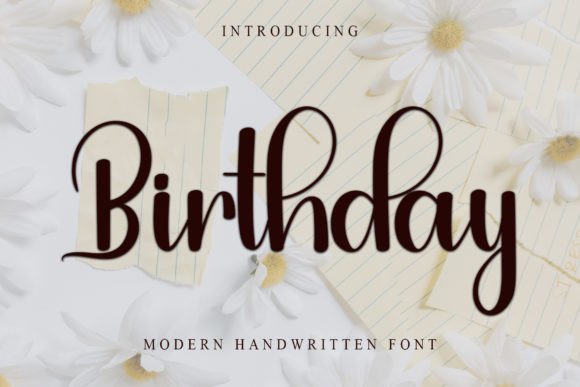
Unleashing Creativity with Birthday Font
Do you remember that moment when you were brainstorming ideas for a friend’s birthday party, and suddenly, a burst of inspiration hit you? You envisioned a beautiful, hand-written invitation that perfectly captured the essence of the celebration. This is where the Birthday Font comes in – a beautiful, elegant handwritten font that adds a touch of sophistication to any project.
This lovely font is designed to be versatile and timeless, making it perfect for a wide range of designs, from party invitations to social media graphics. Its unique style will undoubtedly make your creations stand out, and its ease of use makes it a valuable addition to any designer’s toolkit.
Whether you’re a professional designer or a hobbyist, the Birthday Font is an excellent choice for adding a personal touch to your work. Its beauty and elegance will undoubtedly make your projects shine, and its distinct style will leave a lasting impression on your audience.
Birthday Font Key Features
- Font Style: A custom, cursive font designed specifically for celebrating birthdays, with a playful and whimsical feel.
- Unique Characteristics: Features a unique, hand-drawn design with subtle flourishes and ornaments, adding a personal touch to birthday celebrations.
Birthday Font Review
Overall, I’d say the Birthday Font is a sweet addition to any designer’s toolkit. It’s perfect for creating celebratory graphics, cards, and other party-themed designs. ✨
- Fun and playful vibe: The font’s swirly, cursive style gives off a sense of joy and festivity, making it ideal for birthday invitations, decorations, and other party-related materials.
- Wide range of styles: Birthday Font comes in multiple weights and styles, allowing you to mix and match to achieve the perfect look for your design.
- Easy to read: Despite its playful nature, the font is still easy to read, even at smaller sizes.
However, there are a few limitations to keep in mind: ⚠️
- Not ideal for formal designs: While the font is great for parties, it may not be the best choice for more formal or professional designs.
- Limited language support: Birthday Font may not be compatible with all languages or character sets, which could limit its use in certain designs.
Overall, I think the Birthday Font is a great choice for designers who need a fun, celebratory font for their projects. Just be mindful of its limitations and use it wisely. 😊
Use the Birthday Font to create eye-catching birthday invitations, party decorations, and gift tags.
Experiment with different font sizes and colors to add visual interest to your designs.
Combine the Birthday Font with other festive graphics and images to create a cohesive and celebratory look.
Alternatives to Birthday Font for Designers
Great Vibes is a modern, elegant script font that is perfect for creating a sophisticated and stylish design. It has a more refined look compared to Birthday Font and is ideal for wedding invitations, event promotions, and other special occasion designs.
Comparison to Birthday Font: Great Vibes has a more polished and refined look, making it suitable for high-end designs. It is also more versatile and can be used for a wide range of applications.
Pacifico is a beautiful, cursive font that exudes a sense of relaxation and calmness. It is perfect for creating a beachy or bohemian vibe and is ideal for summer-themed designs, wedding invitations, and event promotions.
Comparison to Birthday Font: Pacifico has a more laid-back and casual look, making it suitable for designs that require a relaxed and carefree atmosphere. It is also more suitable for outdoor or beach-themed designs.
Q: Can I customize Birthday Font to fit my specific design needs?